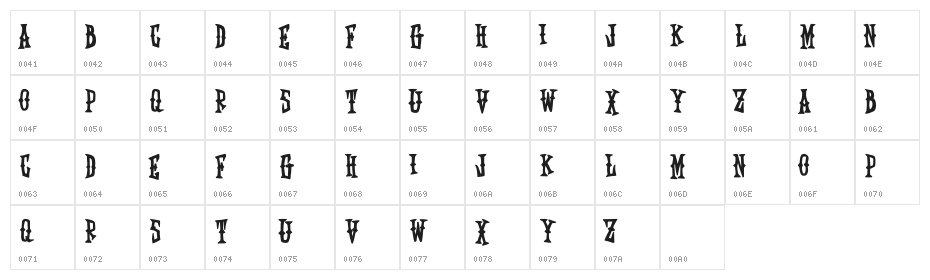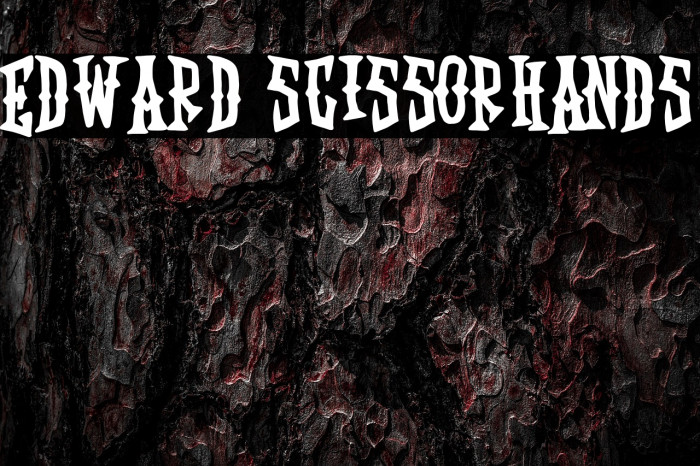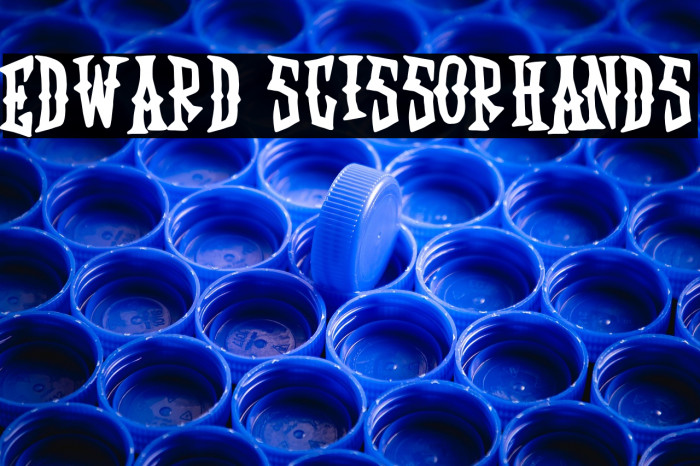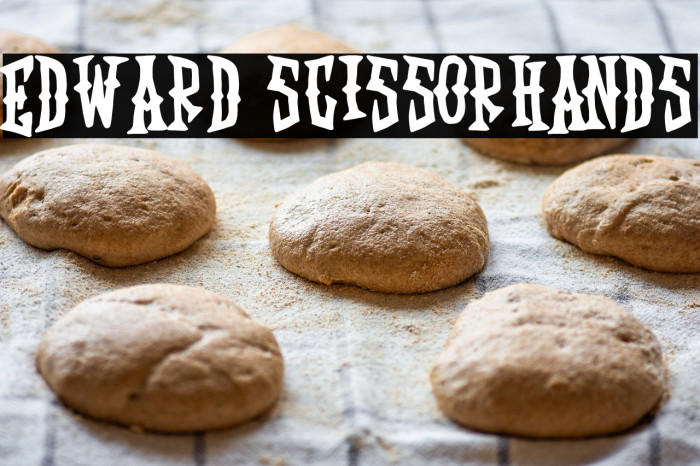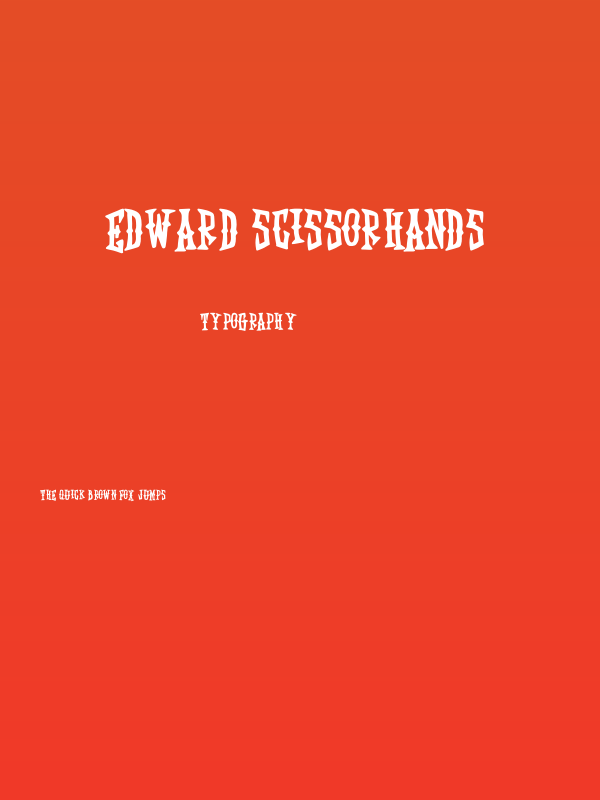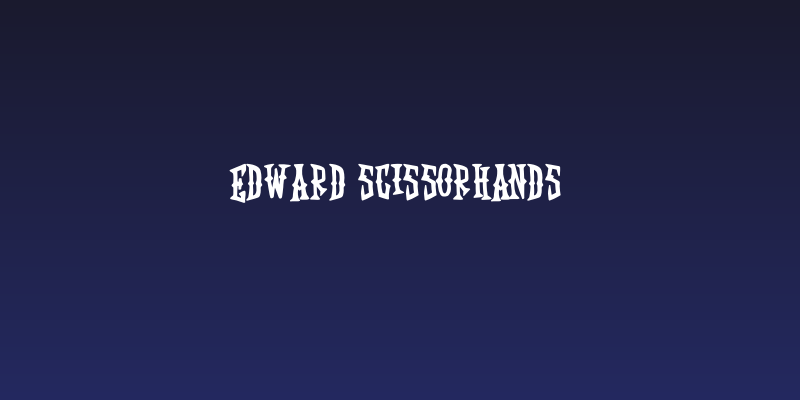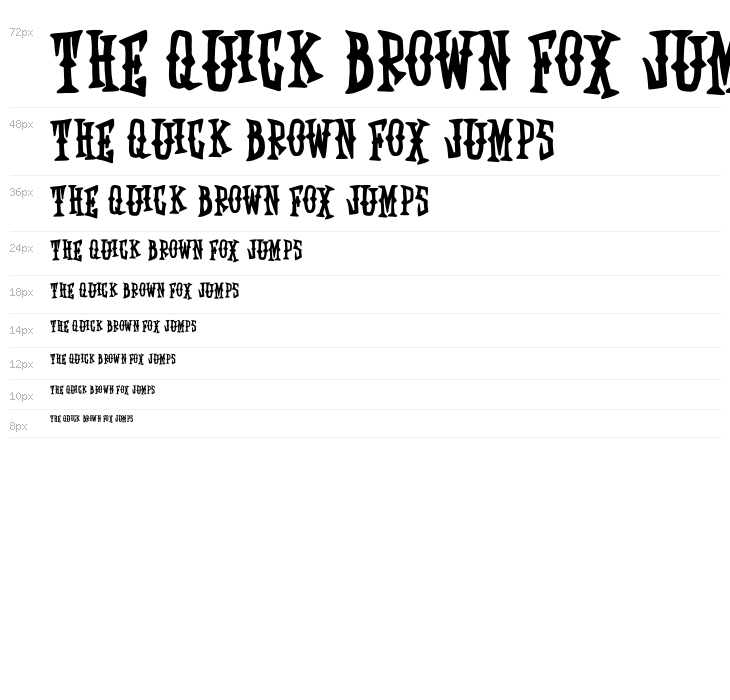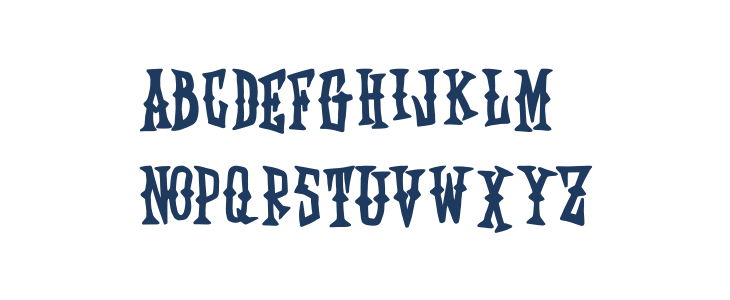
Edward Scissorhands Font
Edward Scissorhands Description
This font features a distinctive, edgy design with sharp, angular lines and a bold presence. The characters exhibit a unique, almost gothic style, with exaggerated serifs and a slightly irregular form that gives it a handcrafted feel. The overall appearance is dramatic and eye-catching, making it suitable for designs that require a strong visual impact. The font's boldness and intricate detailing make it stand out, while its slightly condensed width allows for efficient use of space.
| Overall Style | Gothic, Decorative |
| Proposed Projects | Ideal for movie posters, album covers, Halloween-themed designs, and branding that requires a dramatic flair. |